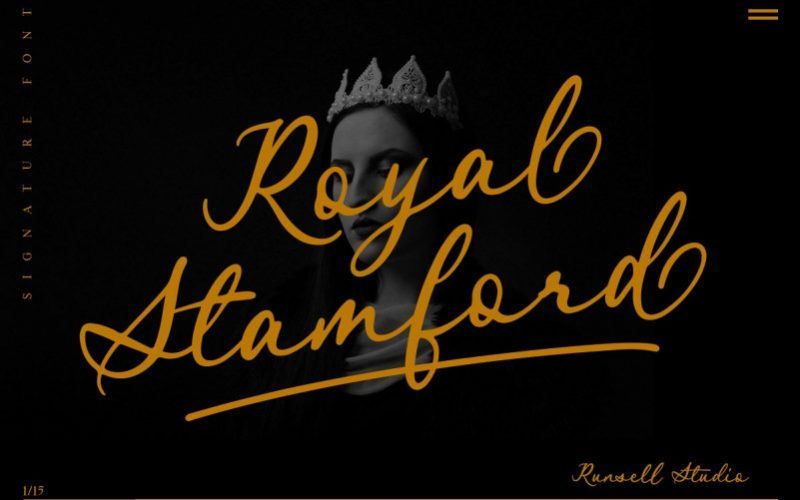
Royal Stamford Script Font
Royal Stamford is a classy handwriting font with a distinctive curve, inside with some interesting features that are perfect for a authentic-style project .
A handwritten script font containing upper and lowercase characters, numerals and a large range of punctuation.